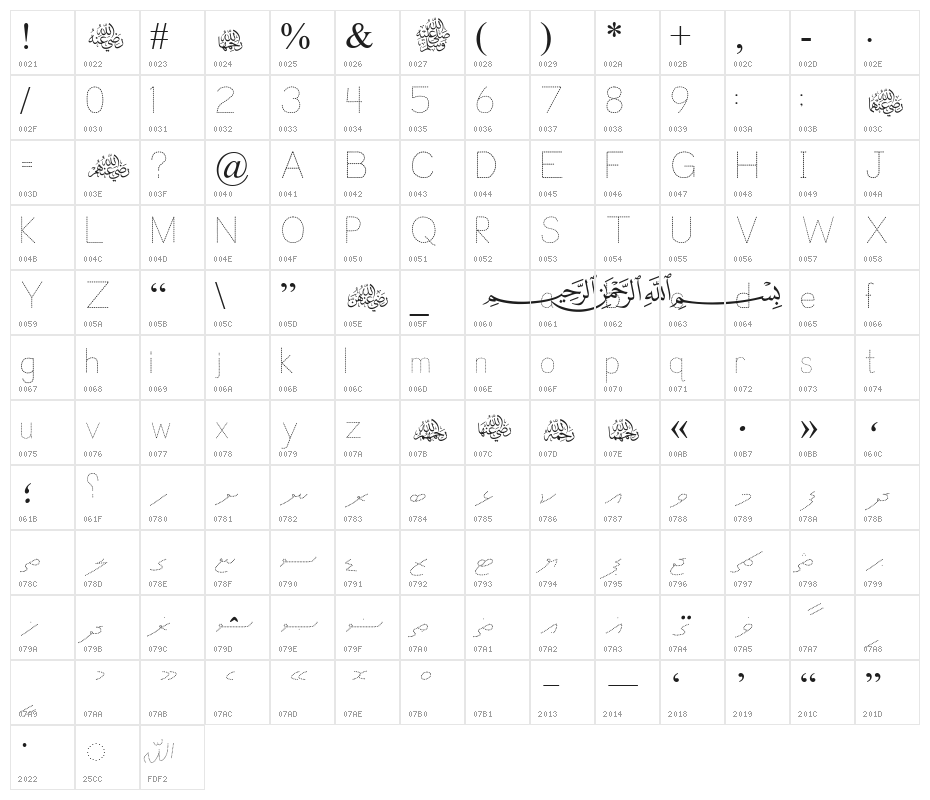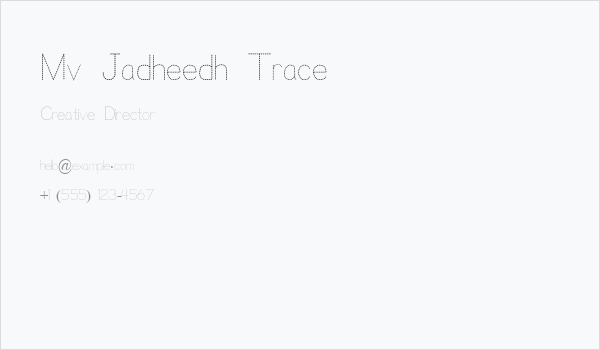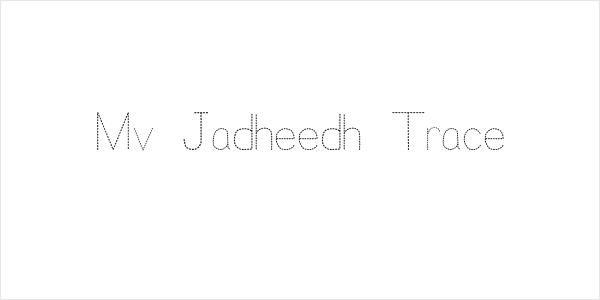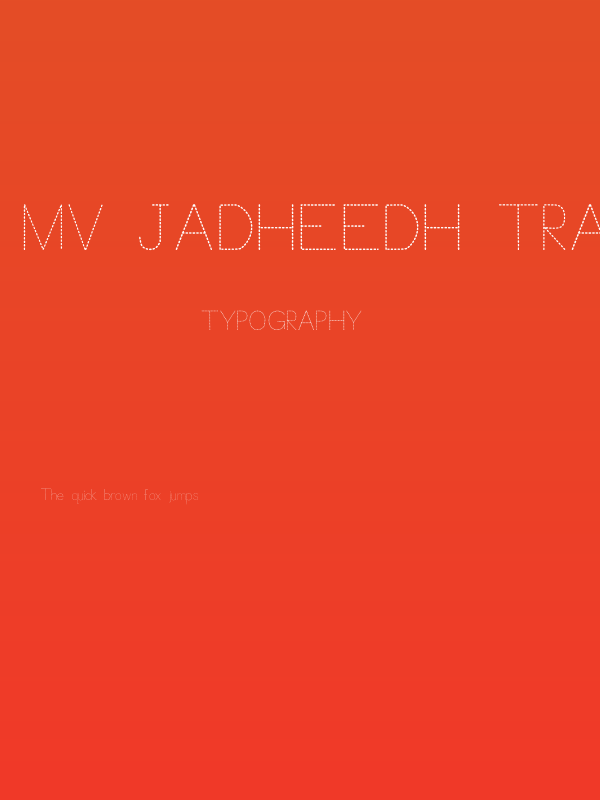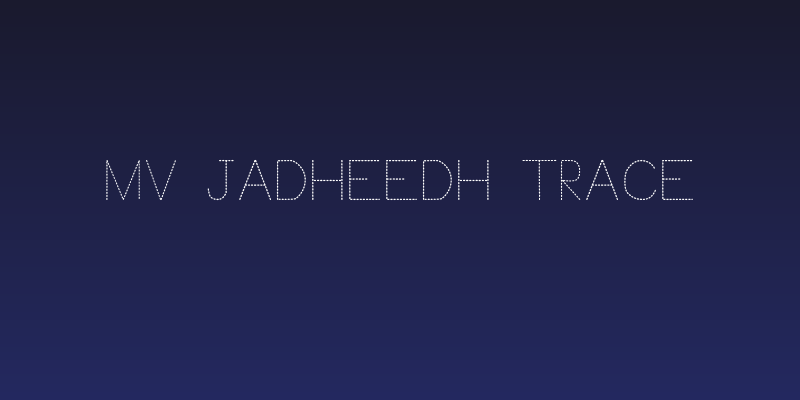
Mv Jadheedh Trace Font
Mv Jadheedh Trace Description
This font features a unique dotted style, where each character is composed of evenly spaced dots forming the outlines of letters and numbers. The uppercase and lowercase letters maintain a consistent height and width, providing a uniform appearance. The numerals follow the same dotted pattern, ensuring cohesion across all characters. Special characters are also included, each crafted with the same dotted technique. This font is ideal for educational purposes, particularly in teaching handwriting or for use in design projects that require a playful and informal aesthetic.
Overall StylePlayful
Use CaseEducational materials, creative design projects
Proposed ProjectsPerfect for educational materials, children's books, playful branding, and creative design projects.